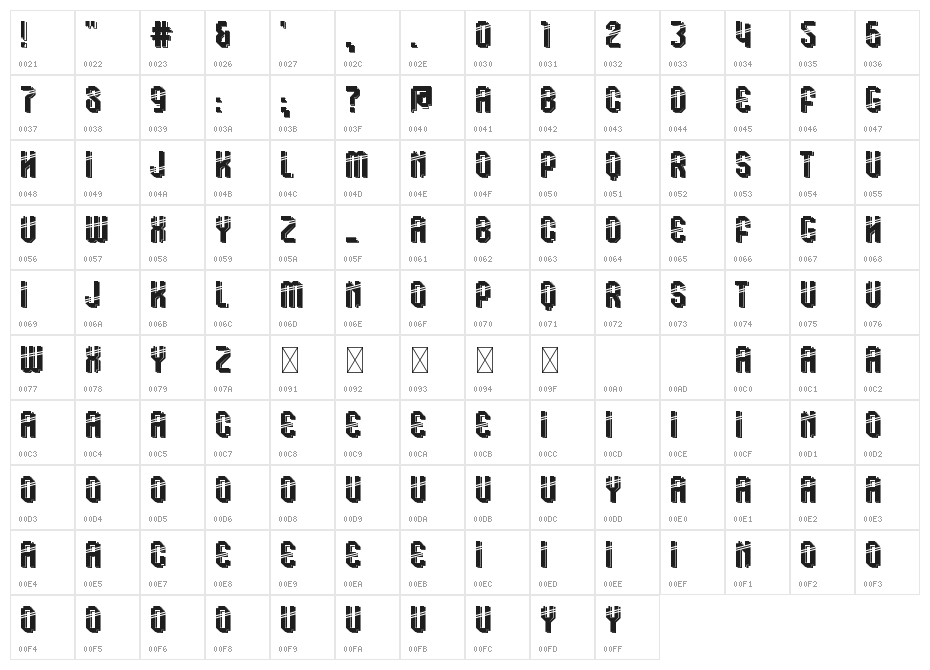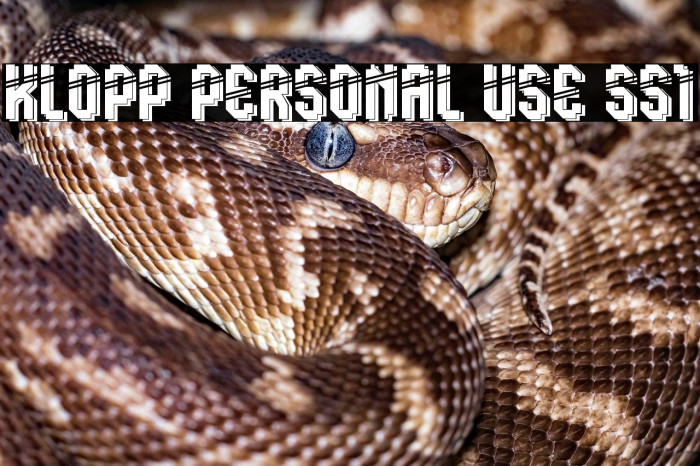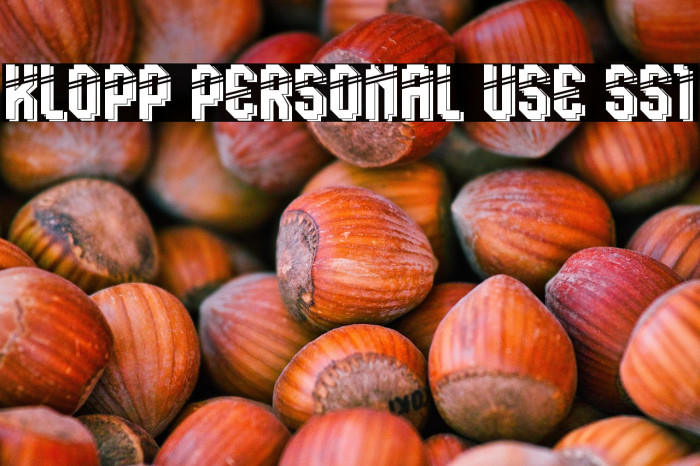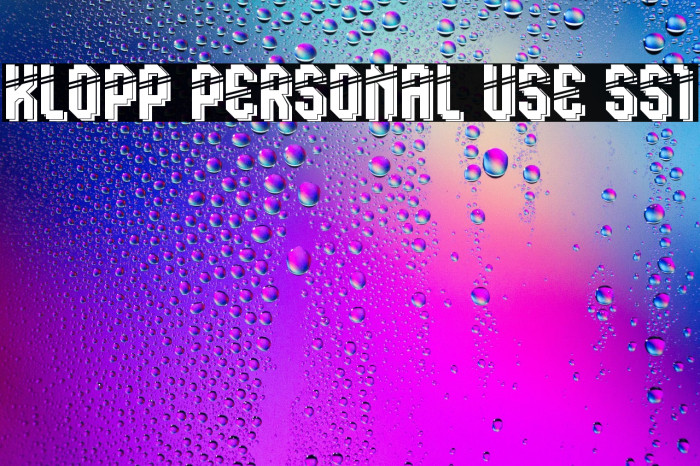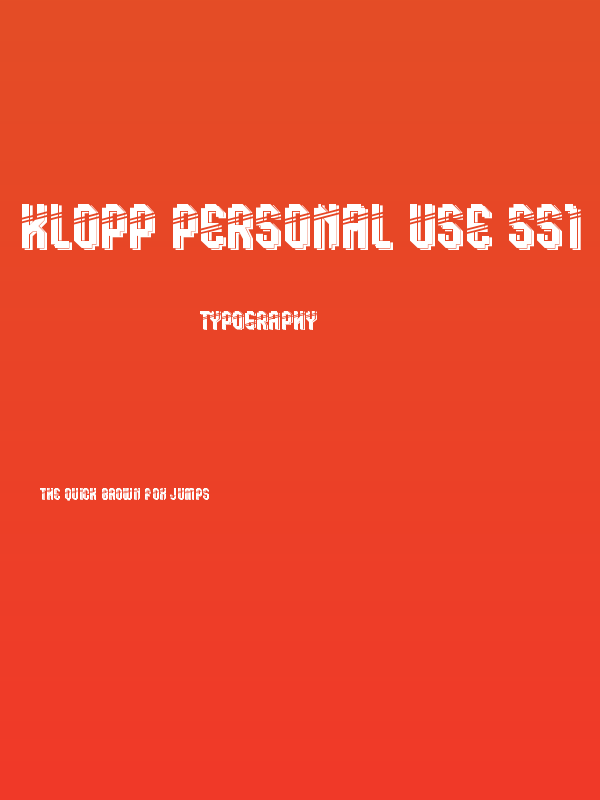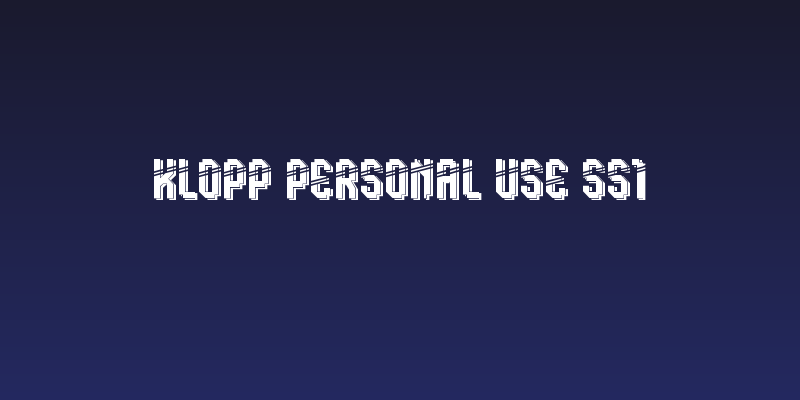
Klopp Personal Use SS1 Font
Klopp Personal Use SS1 Description
This font features a bold, geometric design with a distinct digital or pixelated aesthetic. The characters are constructed with sharp angles and straight lines, creating a futuristic and edgy appearance. The use of horizontal lines cutting through the letters adds a unique, dynamic element, enhancing its modern appeal. The font is highly stylized, making it suitable for projects that require a strong visual impact. The uppercase and lowercase letters maintain a consistent style, ensuring uniformity across different text elements. Numbers and special characters are designed with the same attention to detail, providing a cohesive look throughout.
| Proposed Projects | Ideal for video game titles, tech-themed posters, digital art projects, and branding for technology companies. |